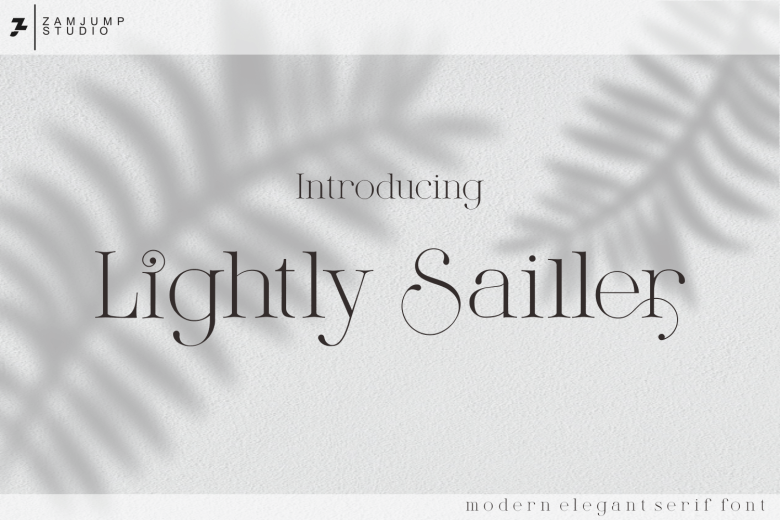
Lightly Sailler Font
Lightly Sailler is a thin and stunning serif font. Use it to make your ideas even more realistic and create spectacular designs! This font is PUA encoded which means you can access all of the glyphs and swashes with ease!